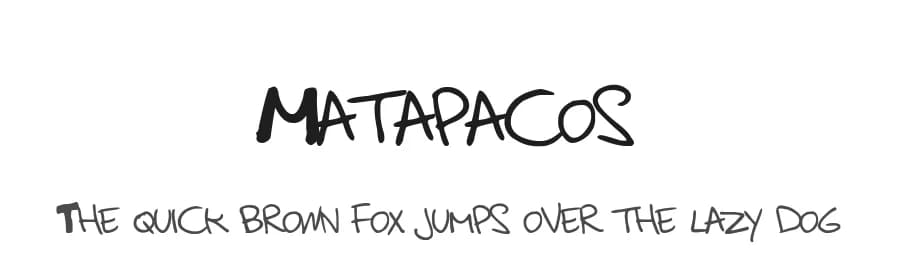
About Matapacos Font
Matapacos, a double marker style typeface.
Matapacos Font is a script font that shines as a display or heading face. Pair it with a clean sans-serif or serif font for body text β the contrast creates a clear hierarchy while the two styles stay balanced and easy to read.
Matapacos Font